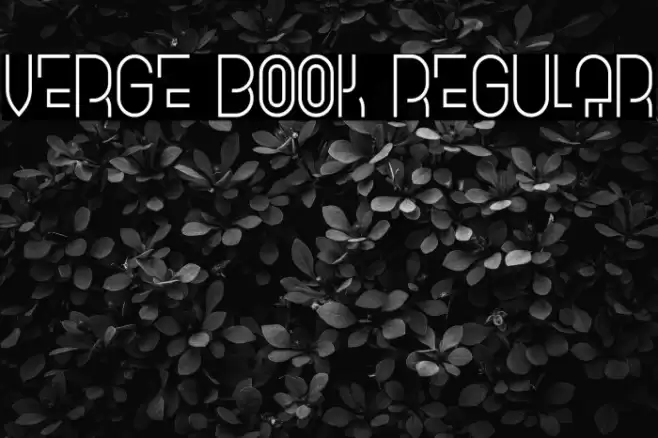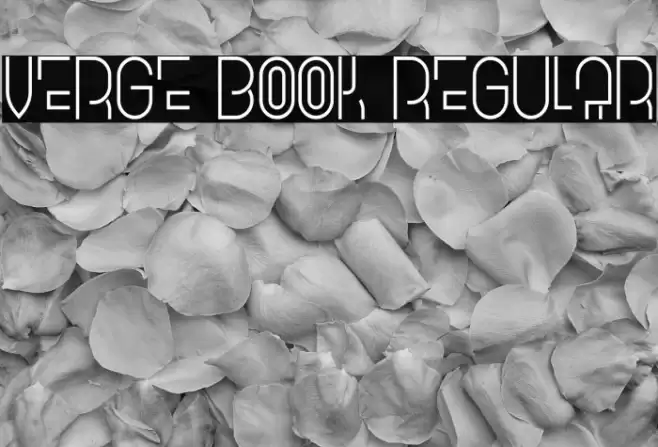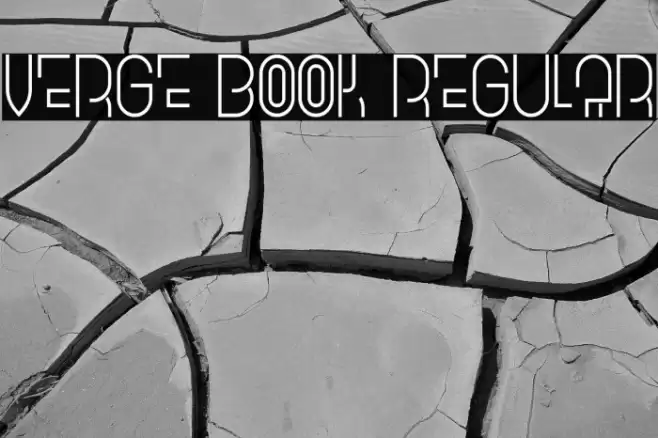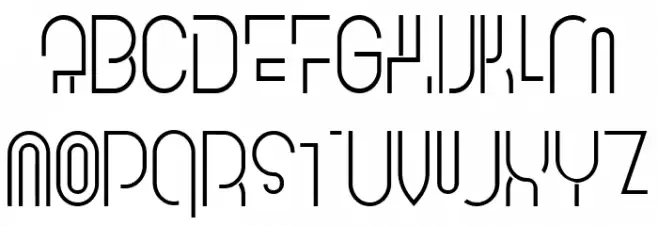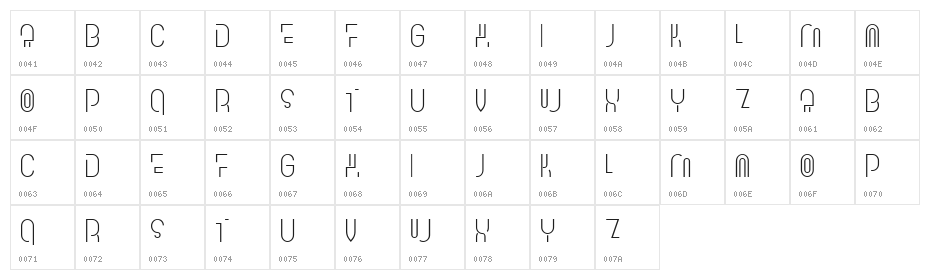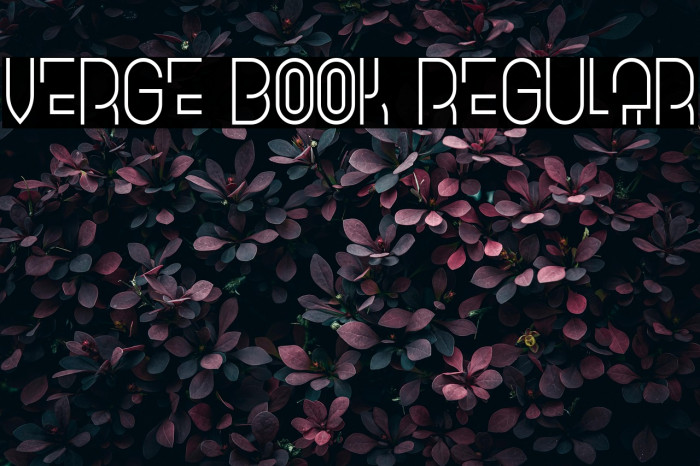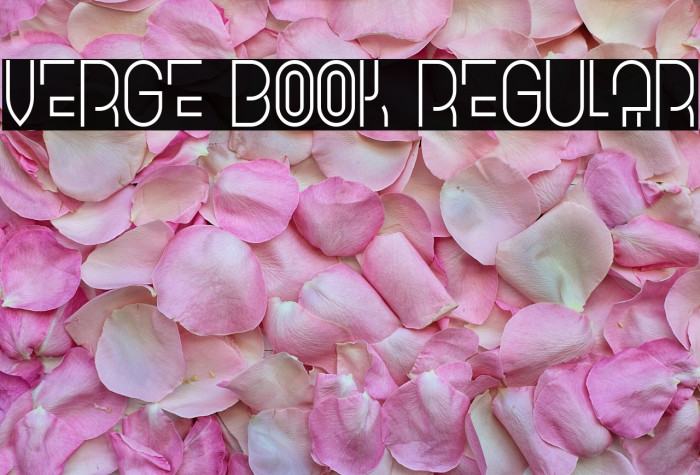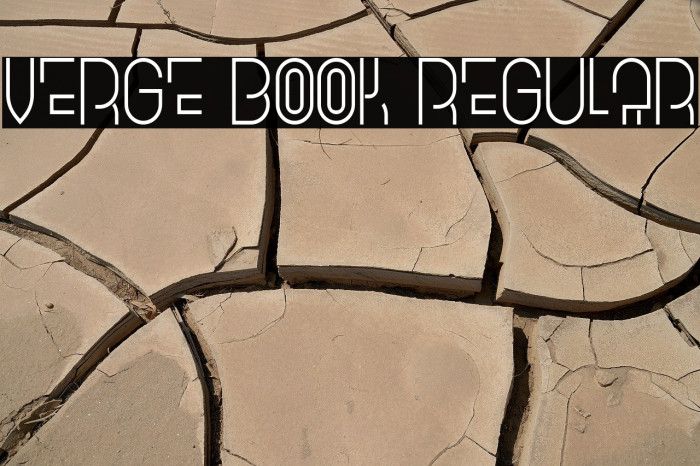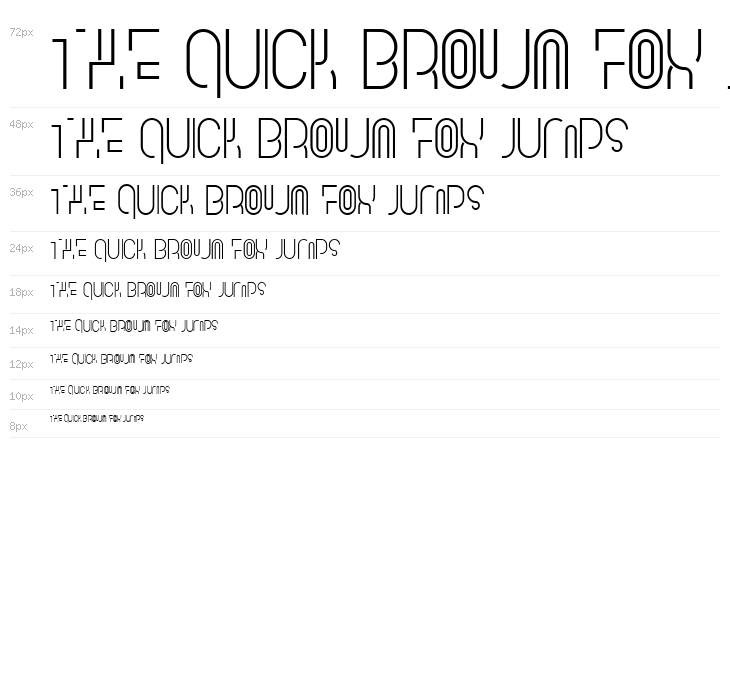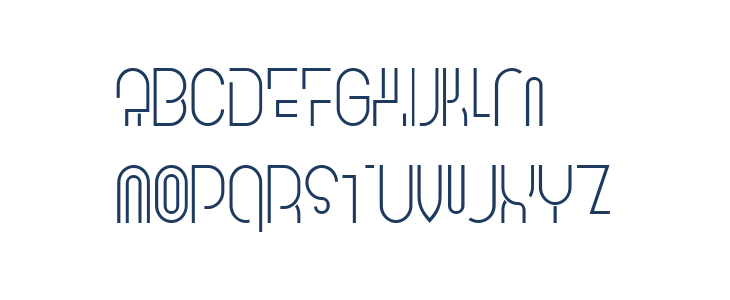
Verge Book Regular Font
Verge Book Regular Description
This font features a modern, geometric design with a distinctively futuristic feel. The characters are composed of clean, straight lines and curves, creating a sense of precision and minimalism. The uppercase letters are particularly striking, with a unique interplay of negative space and line work that gives them a bold, architectural appearance. The lowercase letters maintain the same geometric style, ensuring consistency across the typeface. The numerals and special characters are designed to match the overall aesthetic, making them suitable for a variety of applications. This font's sleek and innovative design makes it ideal for projects that require a contemporary and cutting-edge look.
A modern, geometric font with a futuristic and minimalist design from Uncategorized fonts.
- Proposed Projects: Ideal for tech branding, modern advertising, futuristic posters, and digital interfaces.
- Use Case: Logos, Headlines, Digital Interfaces